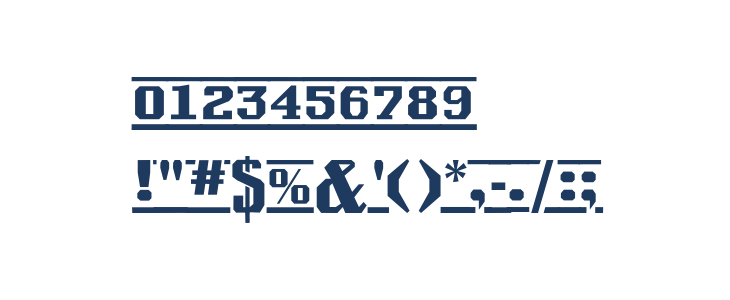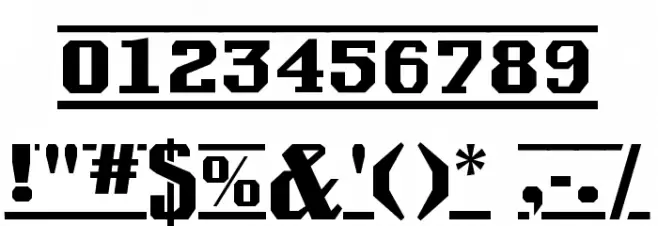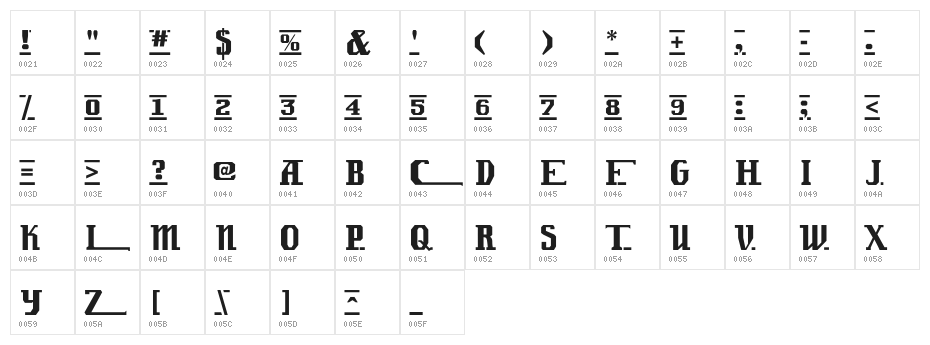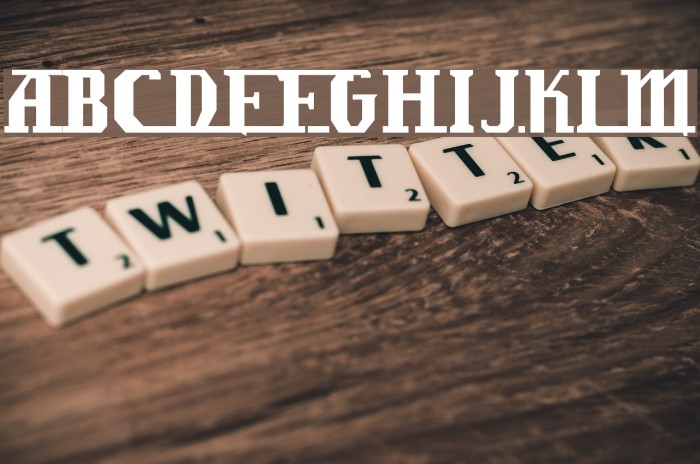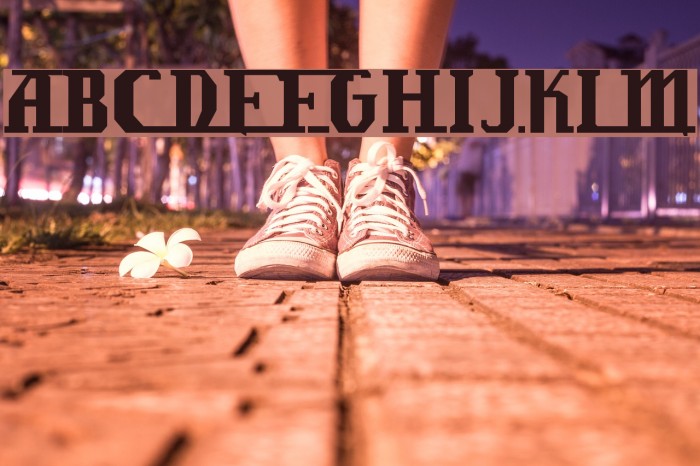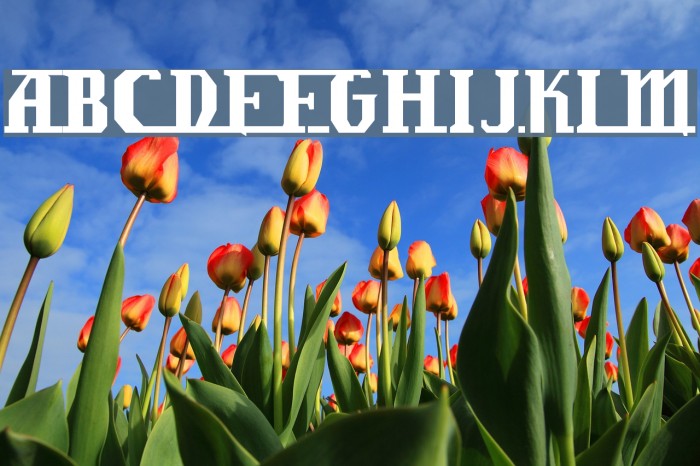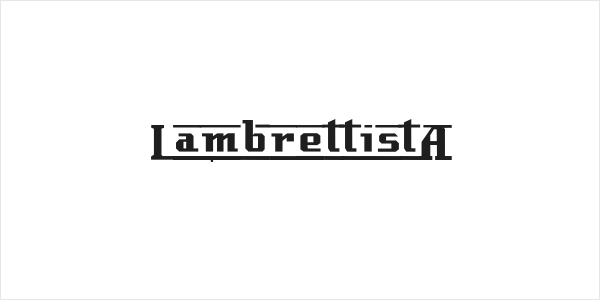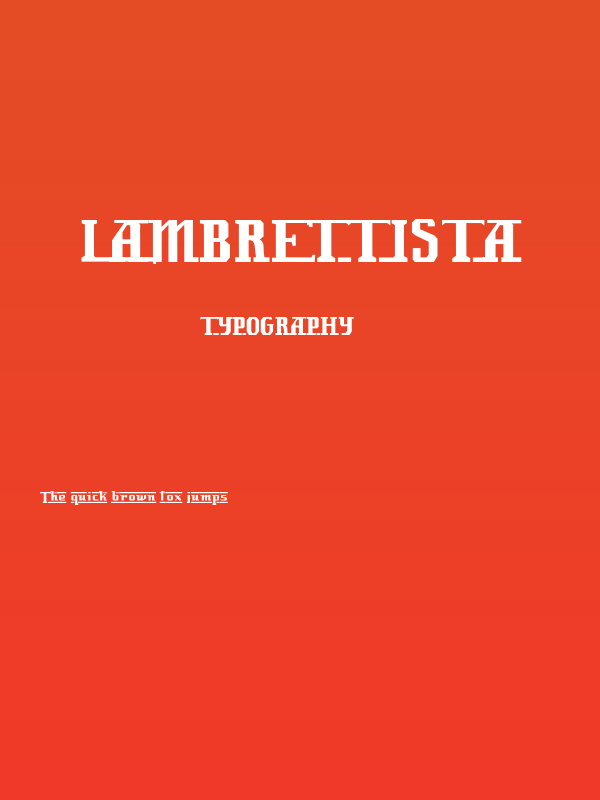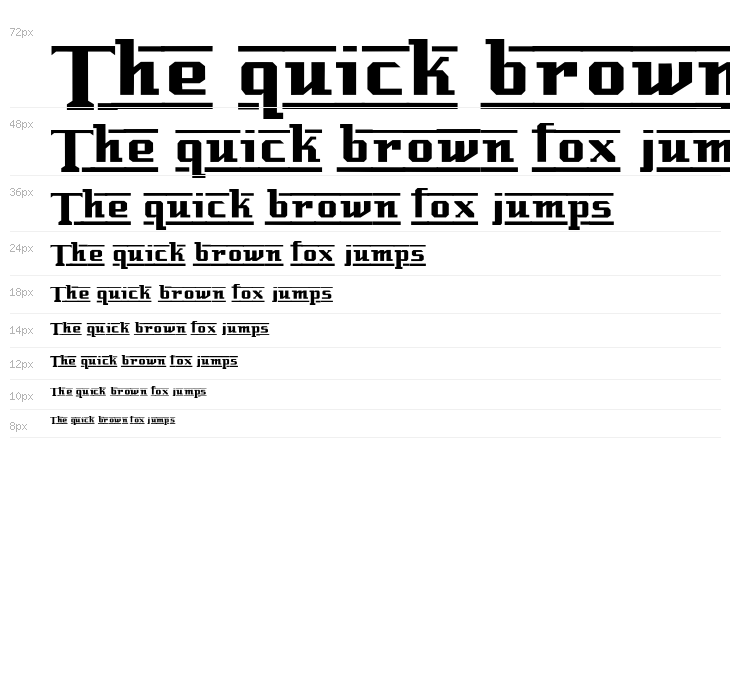
LambrettistA Font
LambrettistA Description
This font features a bold and striking design, characterized by its angular and geometric shapes. The uppercase letters are particularly distinctive, with sharp edges and a strong presence. The lowercase letters maintain a consistent style, offering a cohesive look across the alphabet. Numbers and special characters are designed with the same boldness, ensuring uniformity. The font's unique style makes it suitable for projects that require a strong visual impact, such as logos or headlines. Its decorative nature adds a vintage flair, reminiscent of retro or industrial design aesthetics.
Overall StyleVintage, Industrial
Proposed ProjectsIdeal for logos, headlines, posters, and branding materials that require a bold statement.